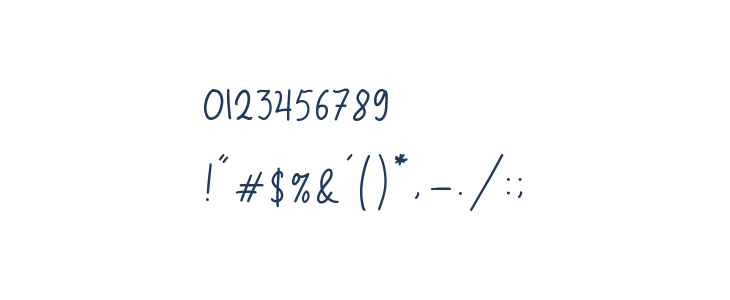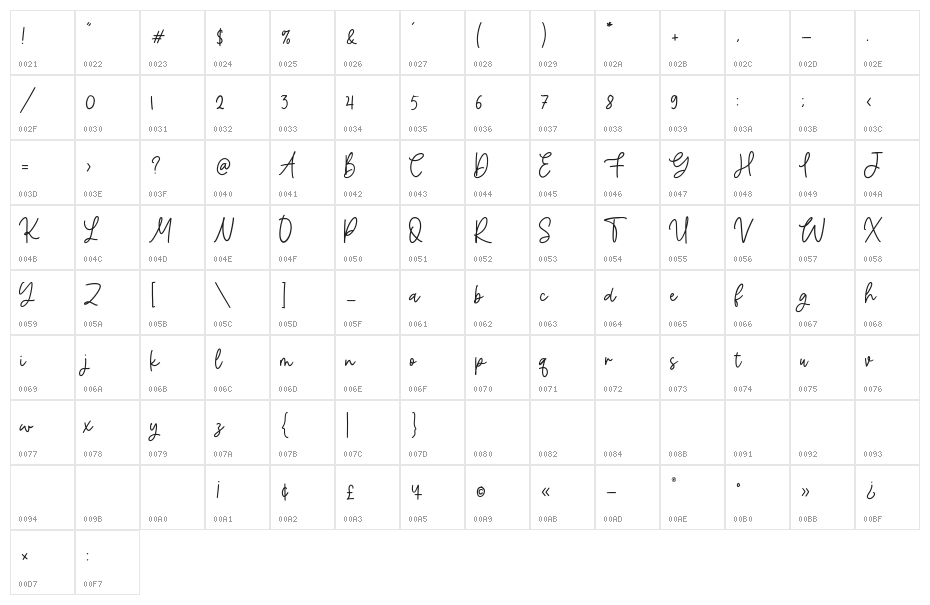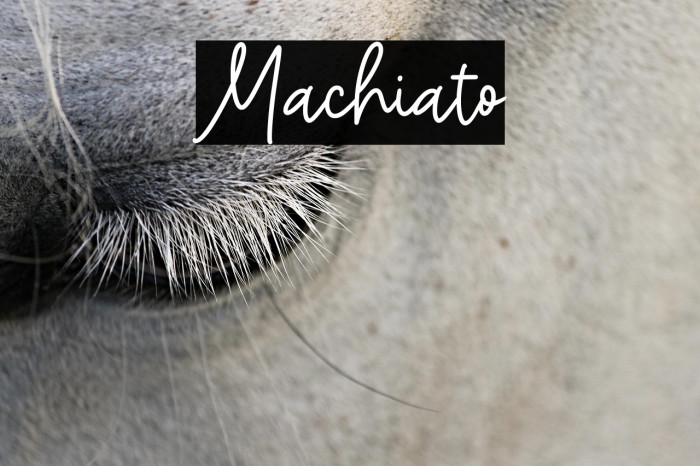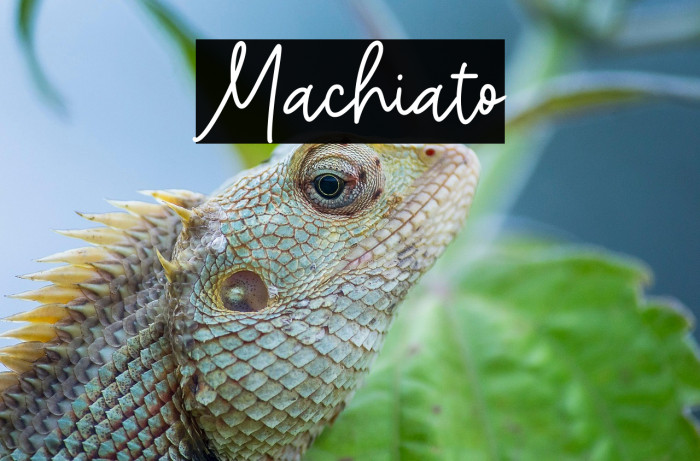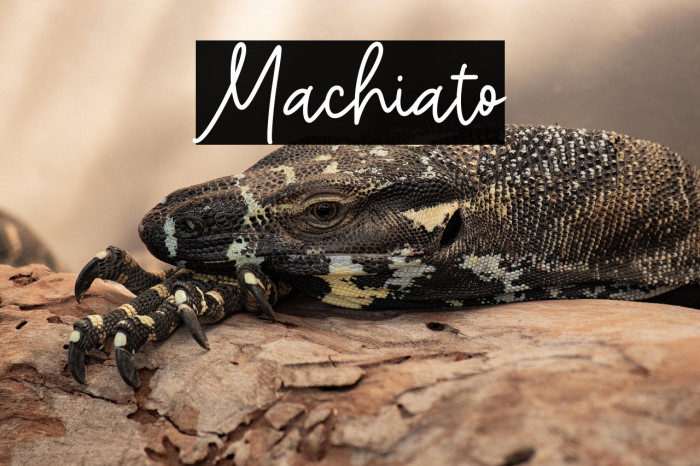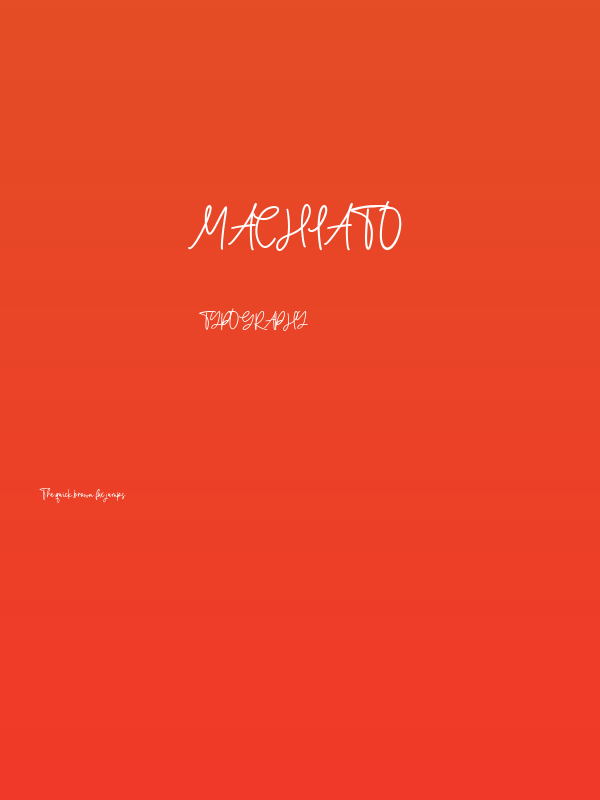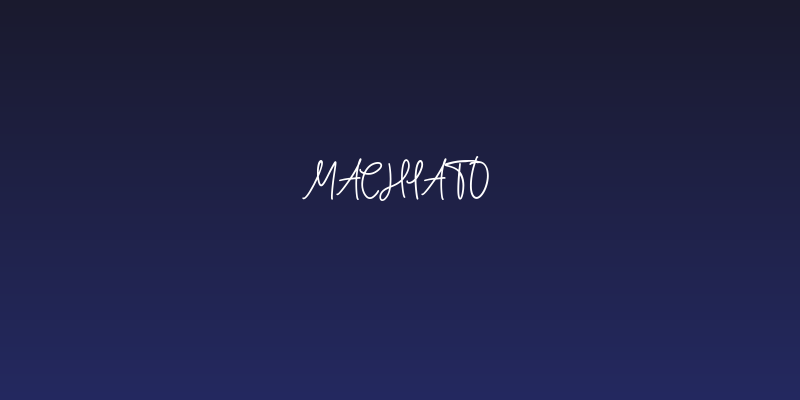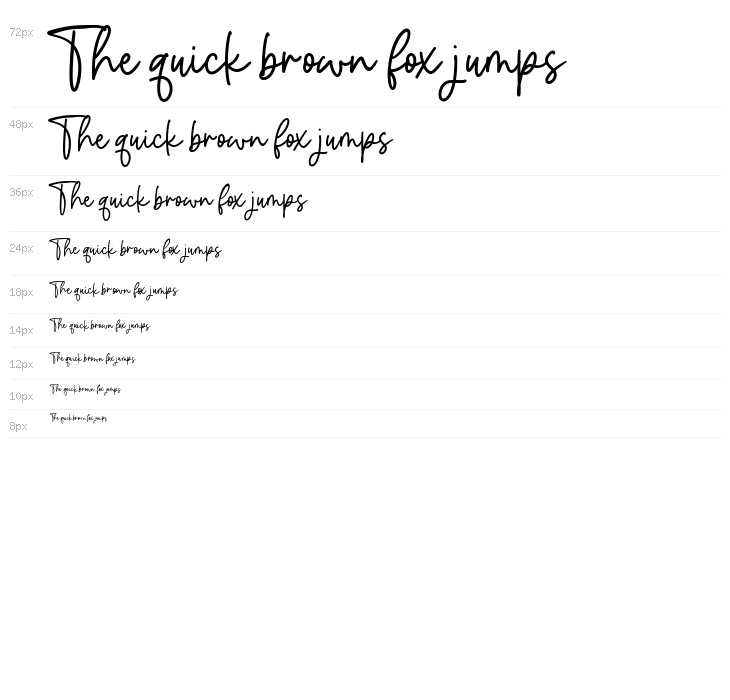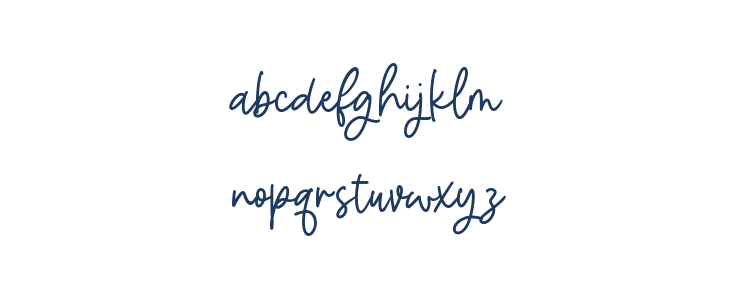
Machiato Font
Machiato Description
This font exhibits a lively and flowing handwritten style, characterized by its elegant cursive script. The letters are interconnected with smooth, sweeping strokes, giving it a natural and personal touch. The uppercase letters are slightly more elaborate, with some featuring loops and flourishes that add a decorative flair. The lowercase letters maintain a consistent flow, enhancing readability while retaining the font's artistic appeal. The numerals and special characters are crafted to match the overall aesthetic, ensuring a cohesive look across all text. This font's charm lies in its ability to convey a sense of warmth and creativity, making it suitable for a variety of expressive projects.